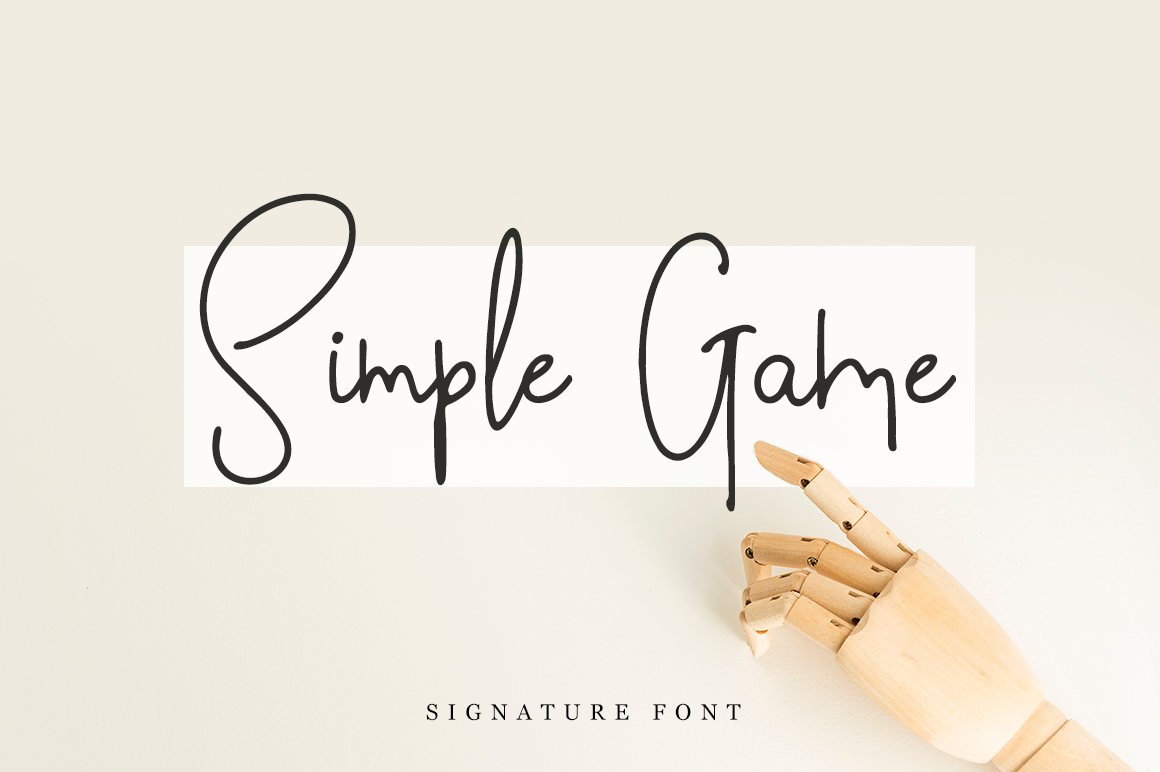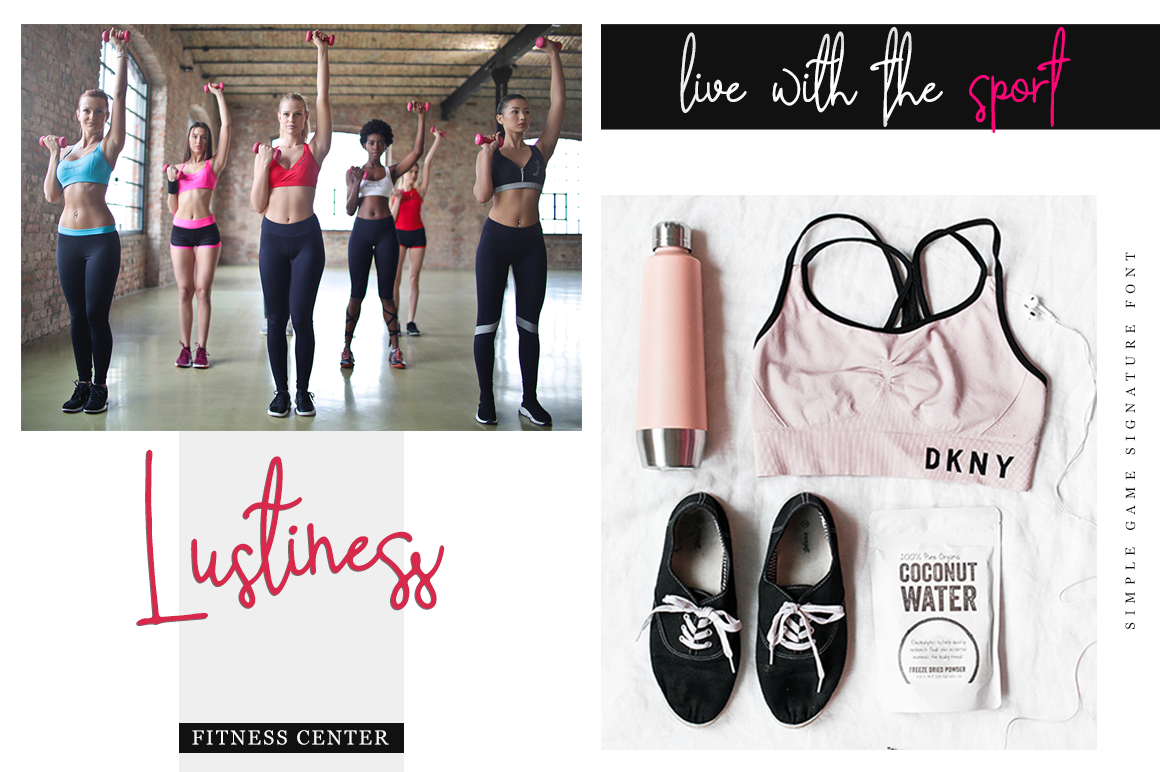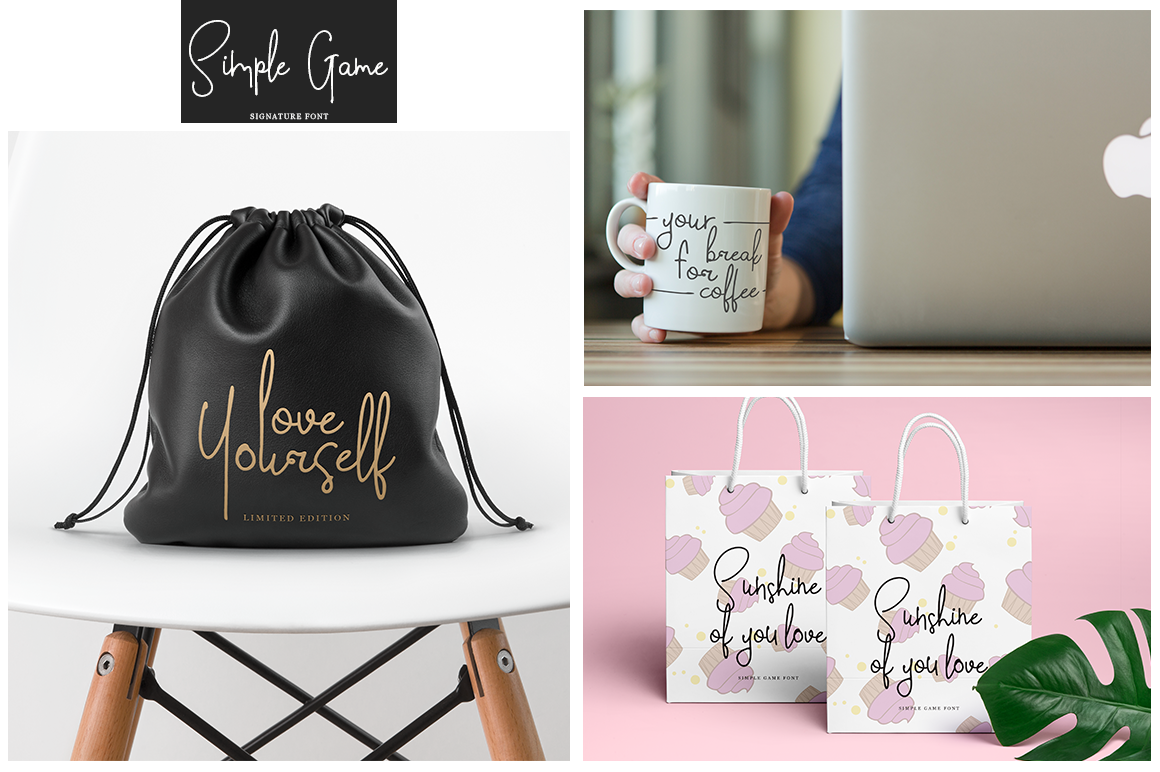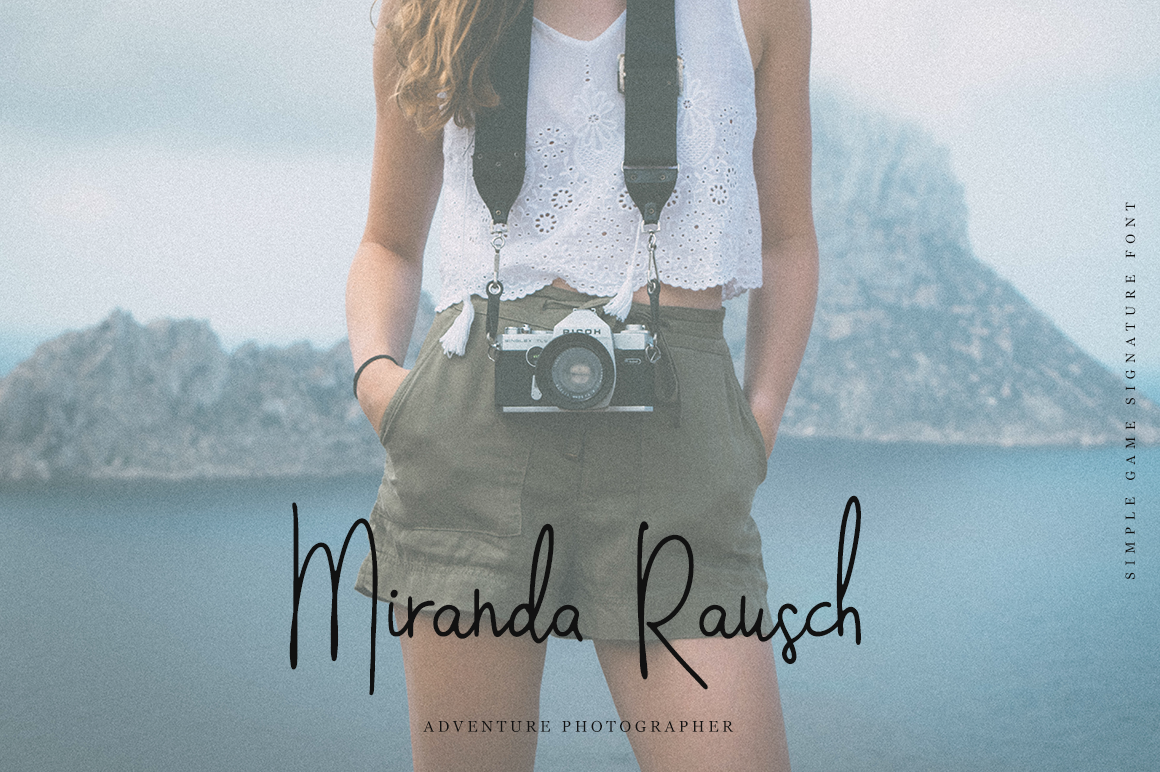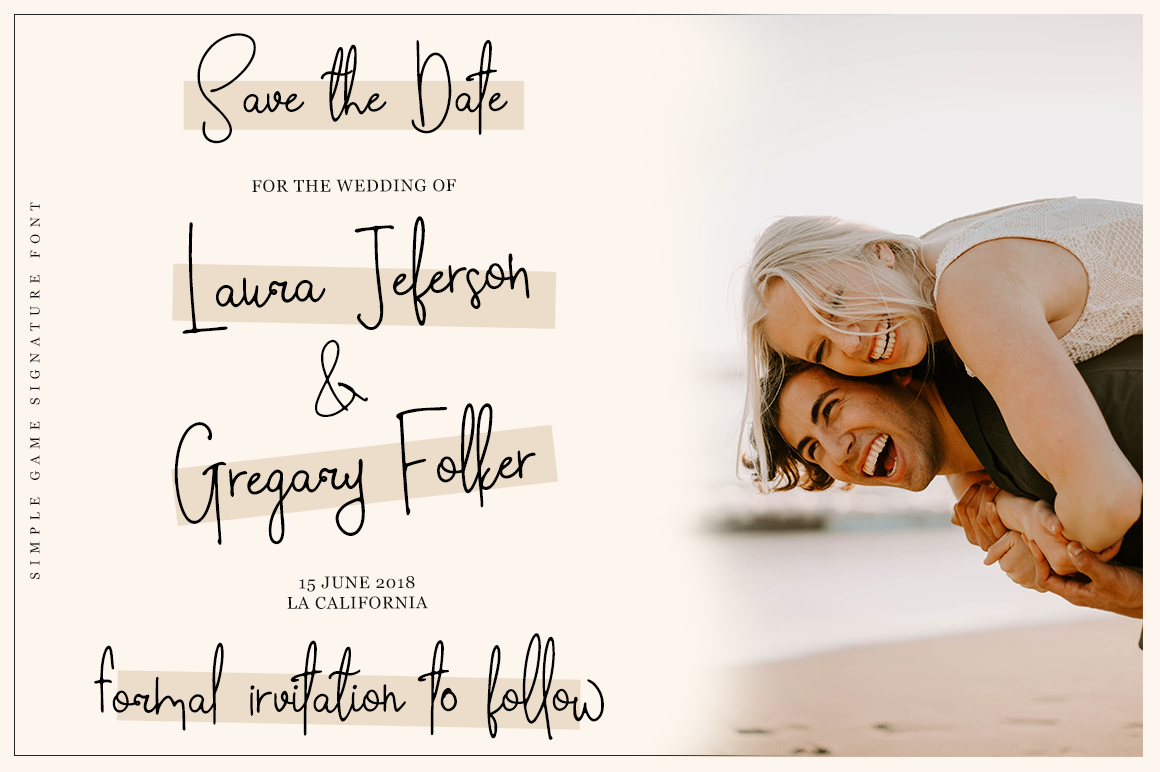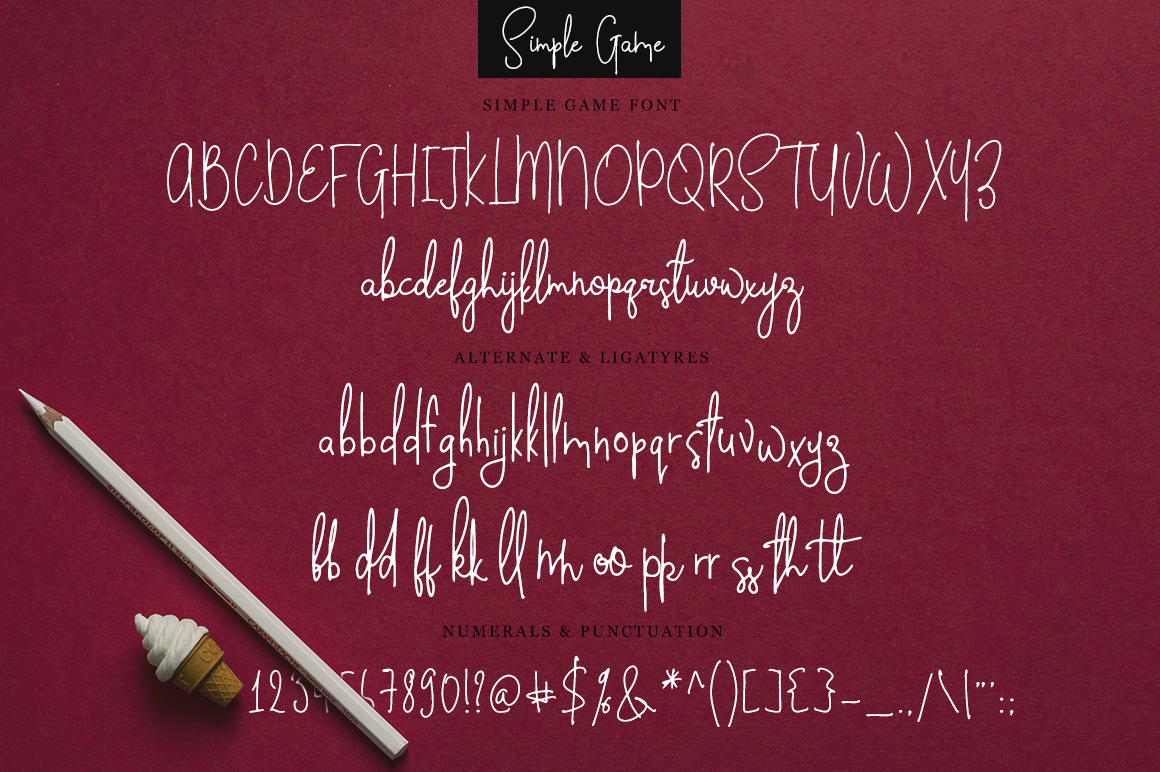
Simple Game Font
About Simple Game Font
Simple Game is a stunning handmade calligraphy font, with a clean and sleek style. This monoline font is perfect for a wide range of designs, and can give your projects a wholly realized editorial feel.